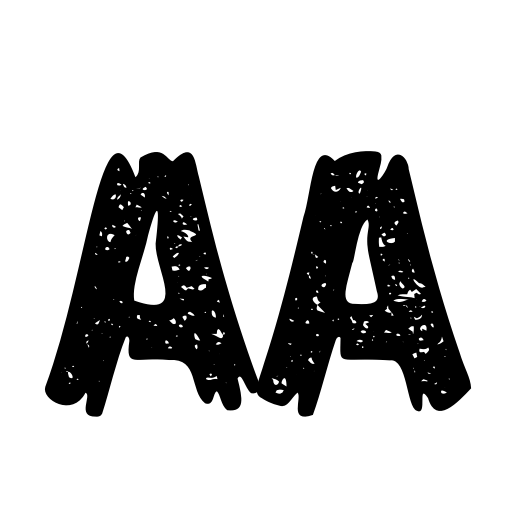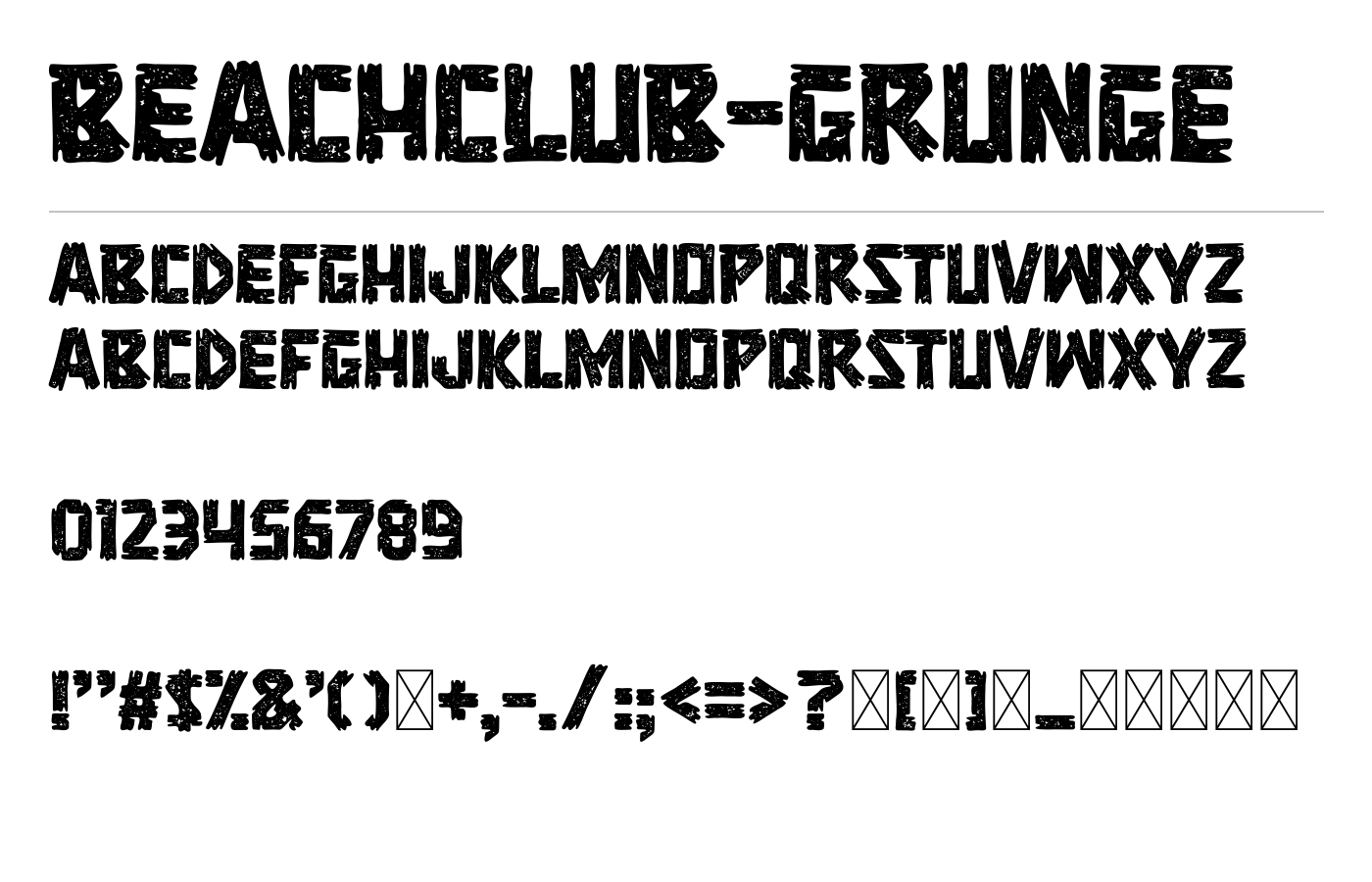
Beachclub-Grunge is a bold, textured sans serif font with a distressed, rough-edged style that gives a raw, handmade feel. Its uppercase-only letterforms are compact with a strong, gritty presence, perfect for conveying an urban, edgy, or alternative vibe. This font works well for attention-grabbing headlines, posters, and branding where a rugged, casual, or rebellious mood is desired.
BEACHCLUB-Grunge Font
About BEACHCLUB-Grunge Font
| Font family | BEACHCLUB-Grunge Font |
| Designer | REZA RAY FAJAR SASONO |